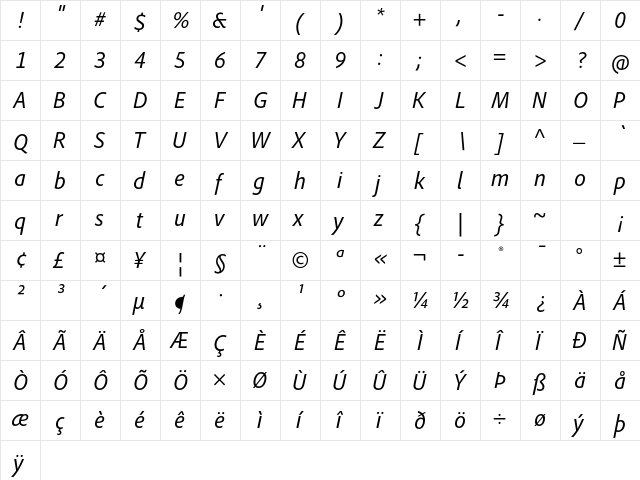
Adobe Clean SemiCondensed Italic
| Designer | Robert Slimbach |
Design Context for Adobe Clean SemiCondensed Typeface
Adobe Clean SemiCondensed is a composed and adaptable typeface that performs quietly and consistently across a wide range of design contexts. The slanted form adds forward momentum and visual energy. Its narrow stance lets it pack a punch even in space-constrained designs.
Pro Tip: Try Adobe Clean SemiCondensed for annotation and caption copy alongside an upright companion — the contrast in angle creates a dynamic but ordered typographic system.